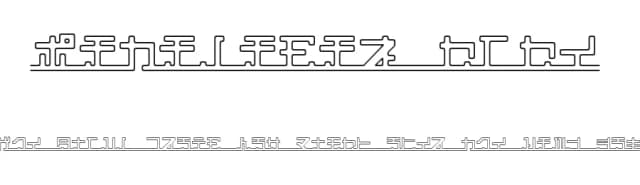
About Katakana, block Font
Katakana is a block-style dingbat font designed by Inoue Yoshikazu. With 221 glyphs and support for over 216 Latin-based languages, it provides a full set of symbols and decorative characters for designers seeking a geometric, Asian-influenced aesthetic. The blocky, angular letterforms function as display elements rather than text, making them ideal for situations where visual impact and novelty matter more than conventional readability or utility.
This font shines in digital applications like social media graphics, app button icons, Discord emoji packs, indie game interfaces, and Cricut vinyl cutting projects where the clean geometry reads crisply even at small scales. Its dingbat nature means each character exists as a standalone symbol rather than forming a complete alphabet, giving crafters and designers discrete building blocks for layering, pattern work, or creating custom icon sets. The strong geometric language also works well in poster headers, printable stickers, and product label design where a distinctive mark carries the design weight.
Katakana, block Font is a versatile dingbats font that works for both headings and body text. Pair it with a contrasting sans-serif or serif font to add visual interest and a clear distinction between titles and body copy.